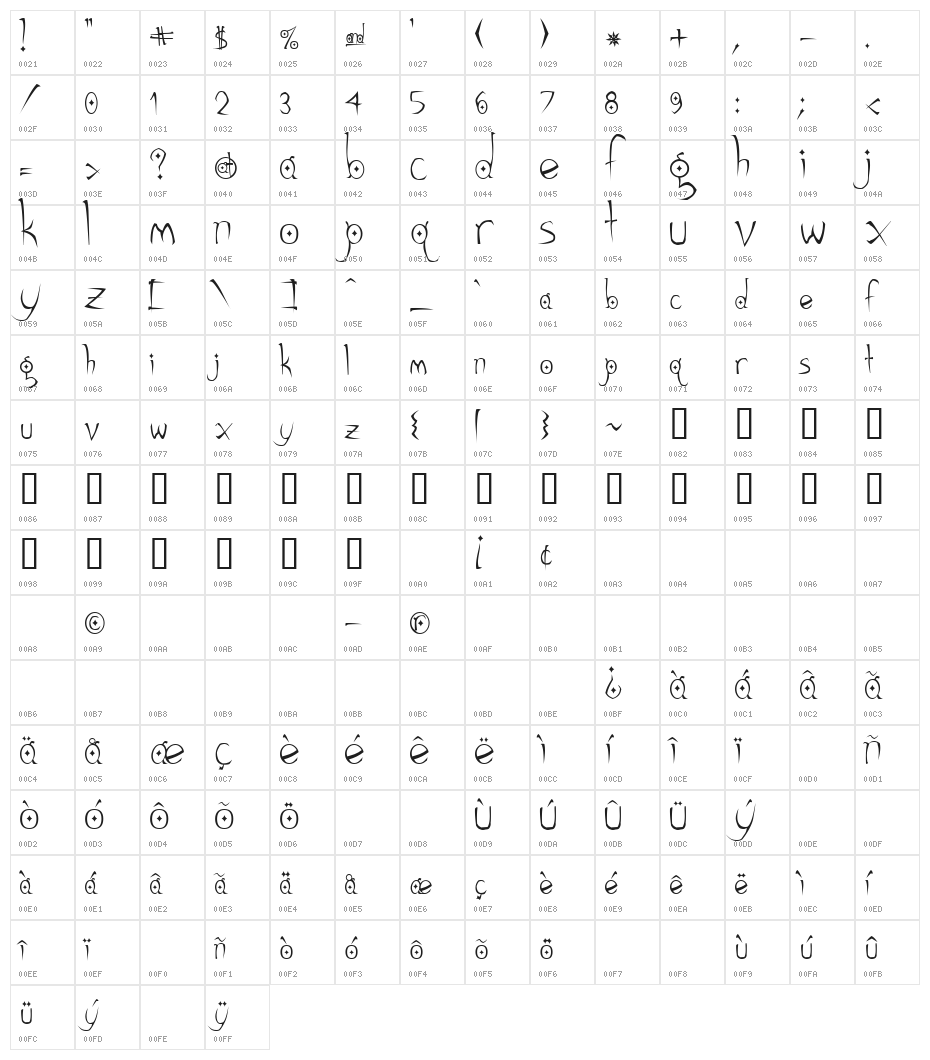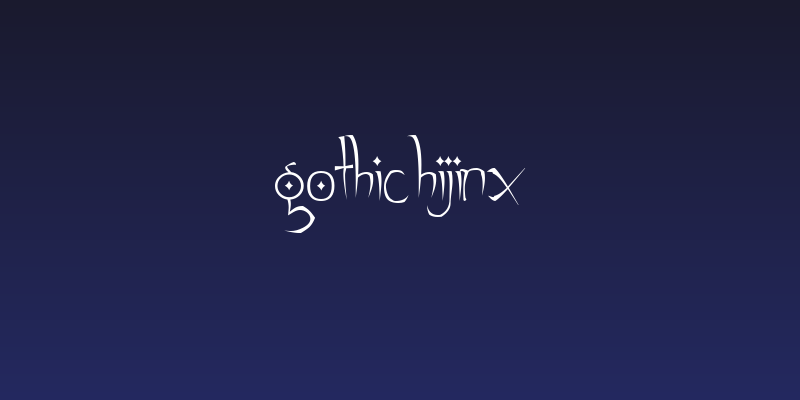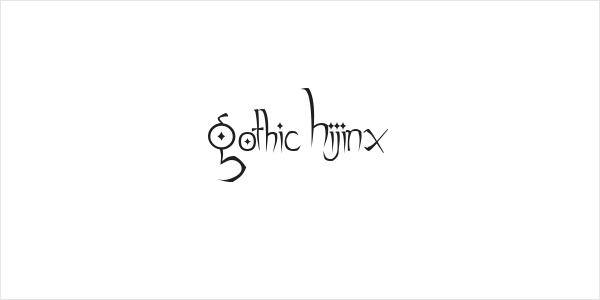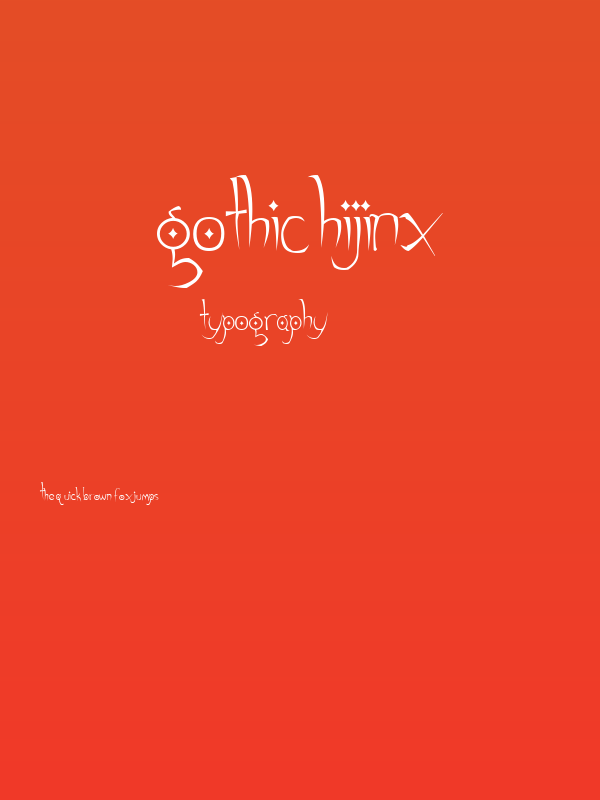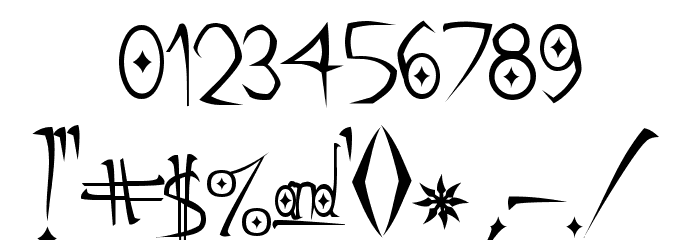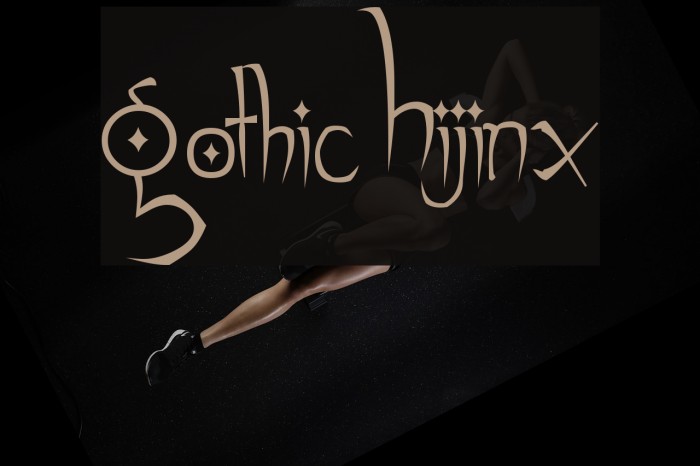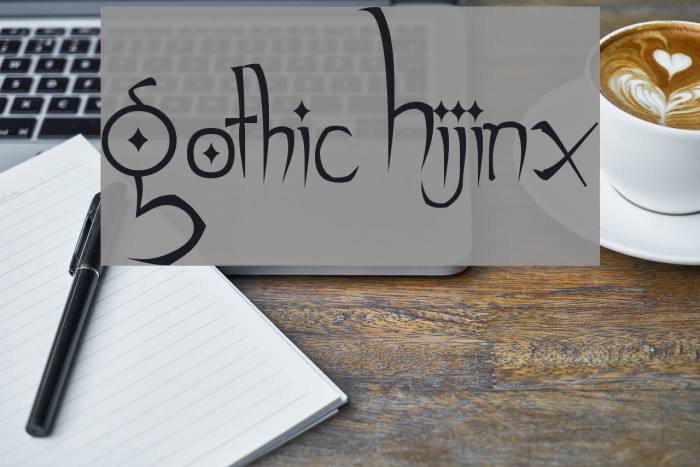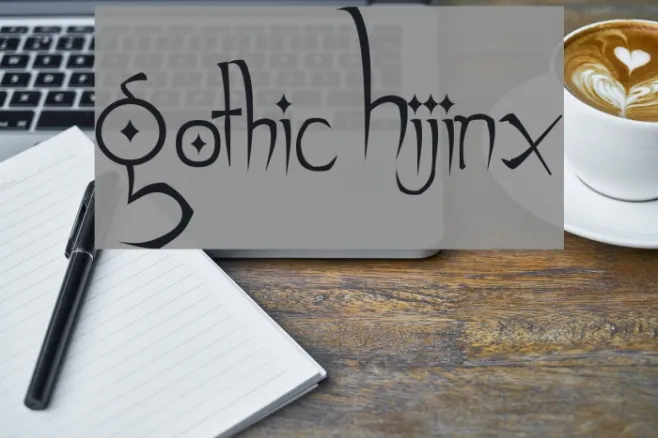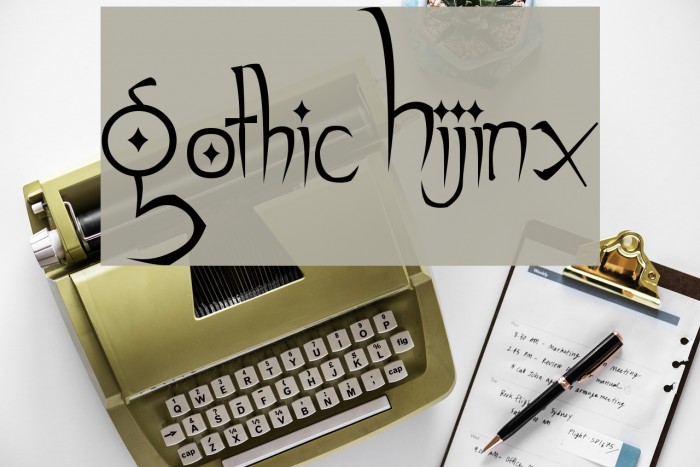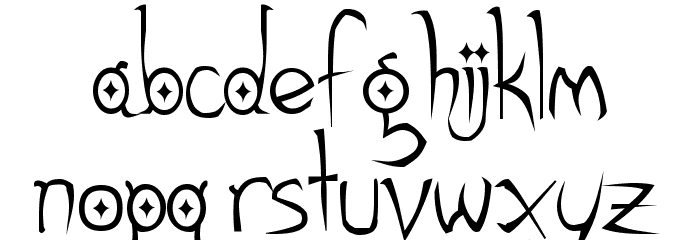
Gothic Hijinx Font
Gothic Hijinx Description
This font exhibits a unique and whimsical style, characterized by its playful and slightly gothic appearance. The letters feature elongated and exaggerated strokes, with some characters incorporating decorative elements such as diamond shapes within the letterforms. The overall design is asymmetrical, adding to its quirky and artistic feel. The font maintains a consistent stroke width, giving it a balanced yet dynamic look. It is particularly eye-catching and would stand out in any creative project. The numerals and special characters follow the same design principles, ensuring a cohesive appearance across all glyphs.
| Proposed Projects | Ideal for creative projects such as posters, album covers, fantasy-themed events, and artistic branding. |